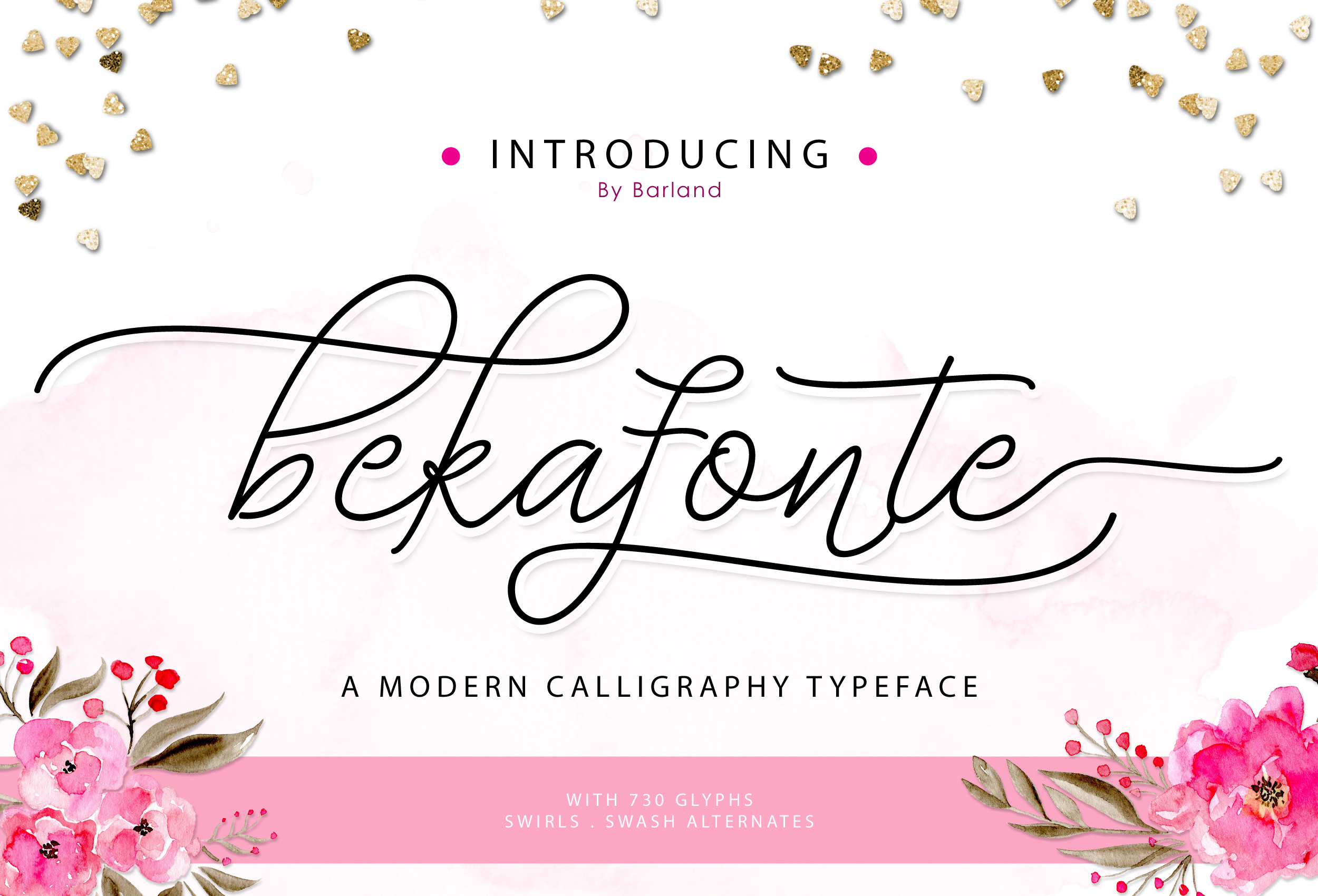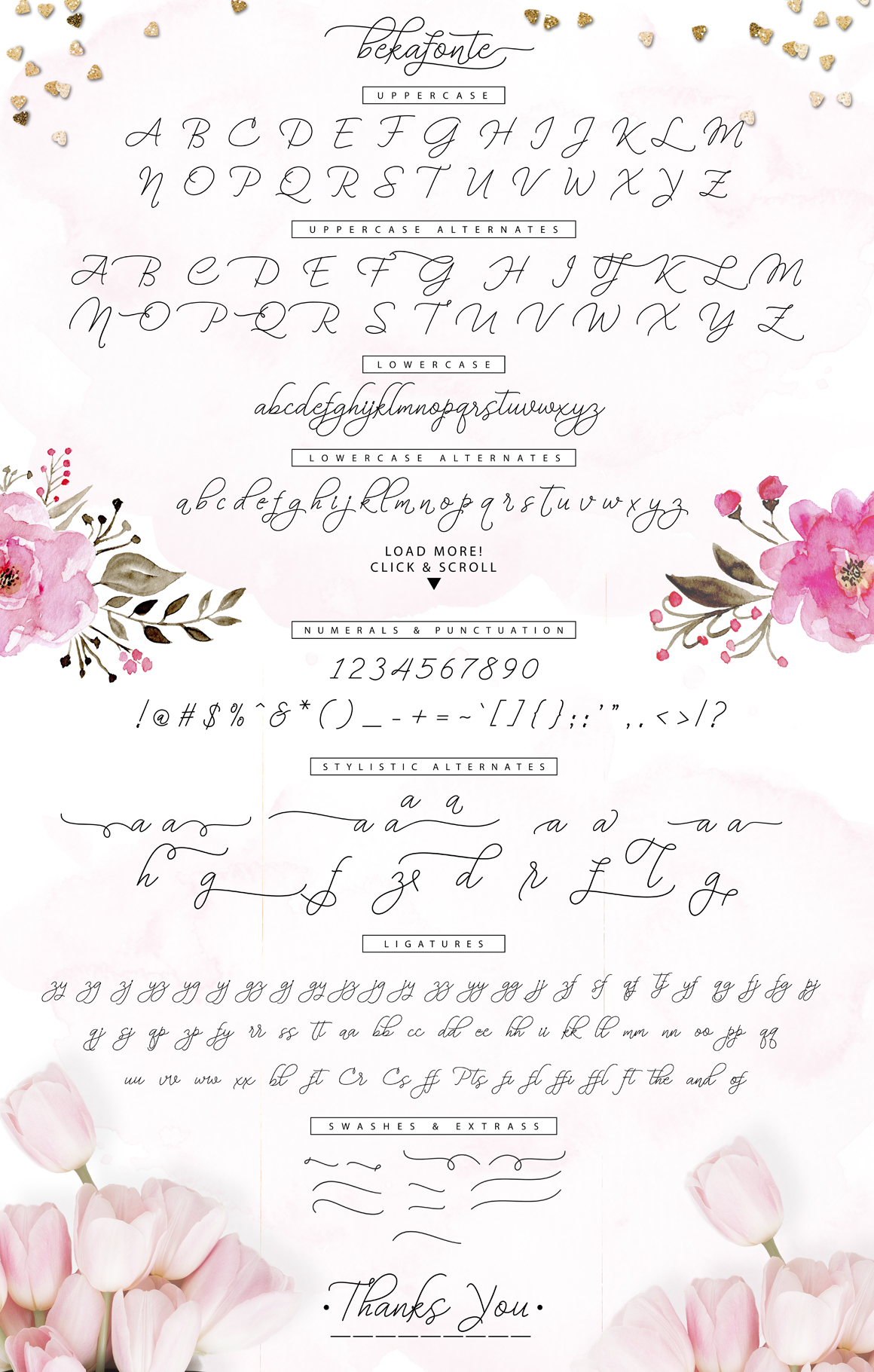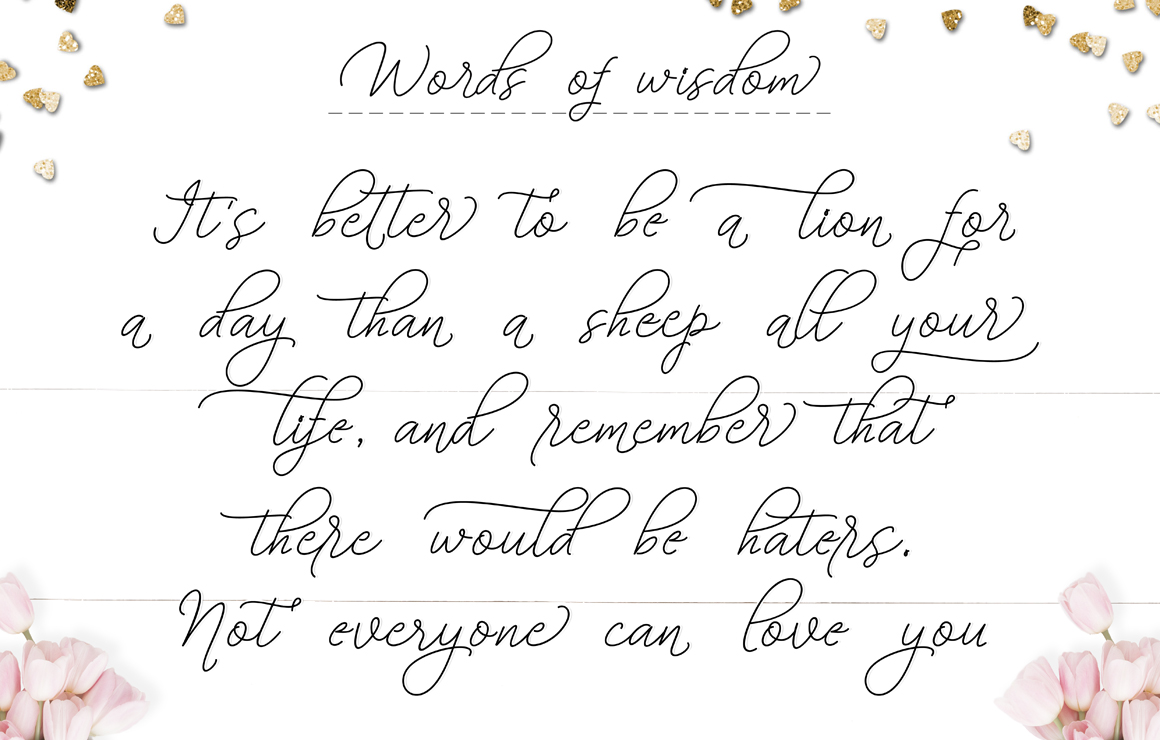
Introducing Bekafonte Typeface
Bekafonte Typeface a fancy, doodley, hand-drawn typeface with alternates and swashes galore. Perfect to add a little whimsy and carefree elegance to your next project.
Bekafonte Typeface Features :
- Uppercase & Lowercase - International Languange & Symbols Support - Punctuation & Number - PUA Unicode Range - Standard Ligatures - Discretionary Ligatures - Stylistic Alternates - Stylistic Set 1-26 - Character Variant - Contextual Swash - etc